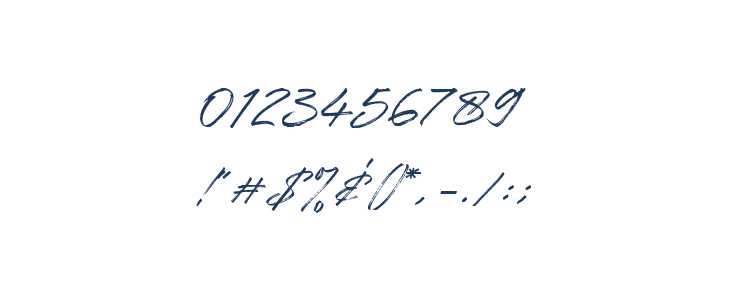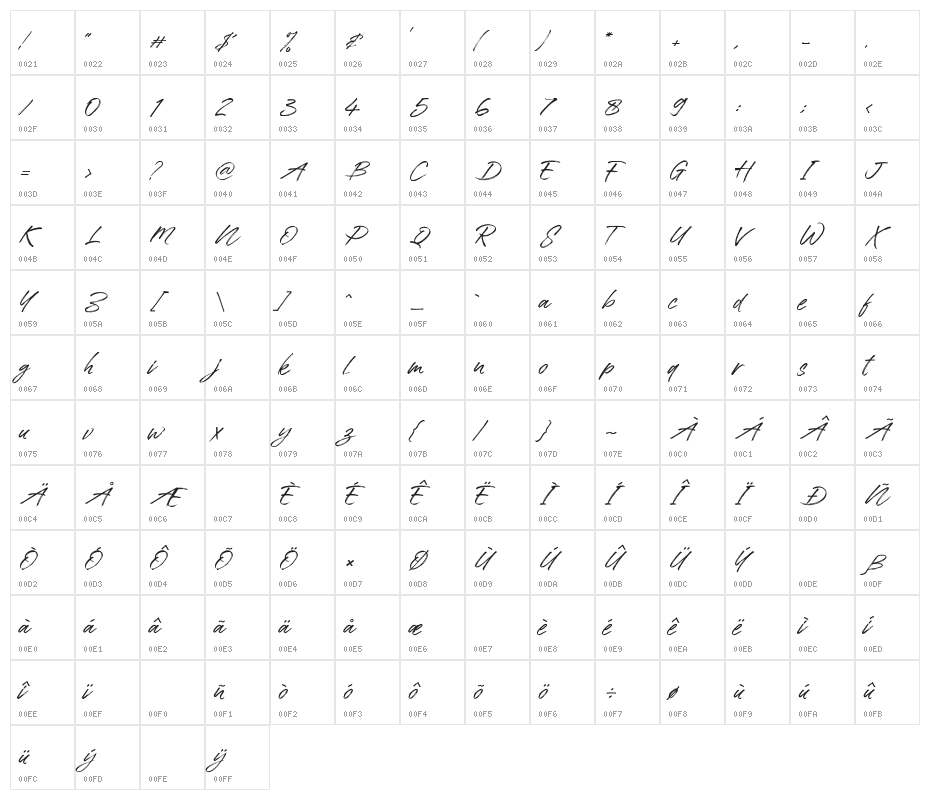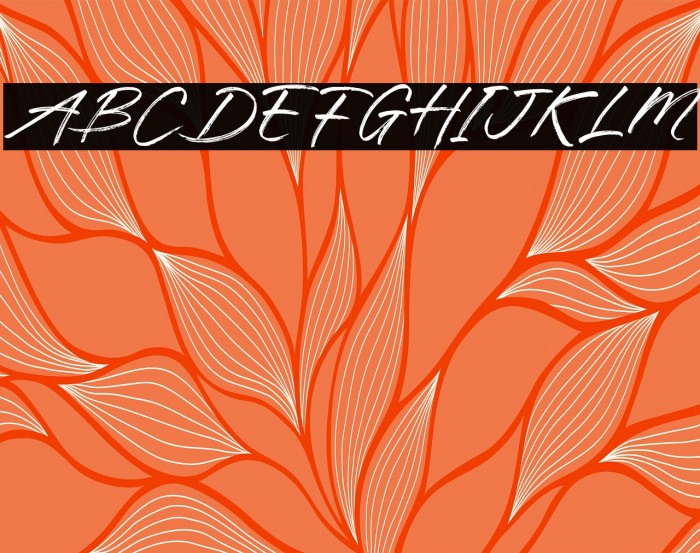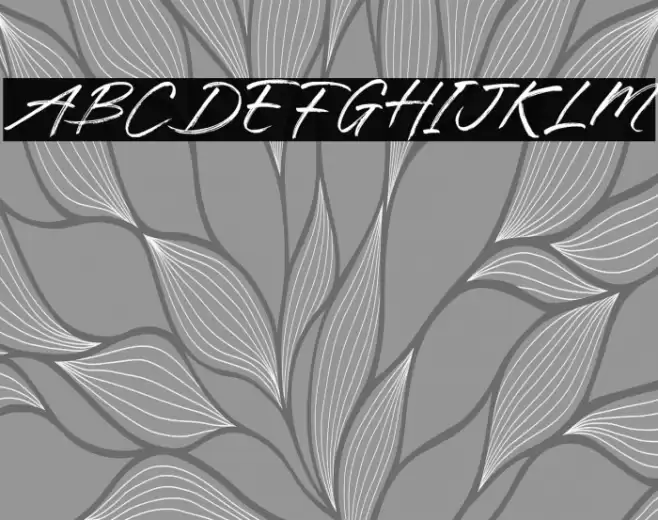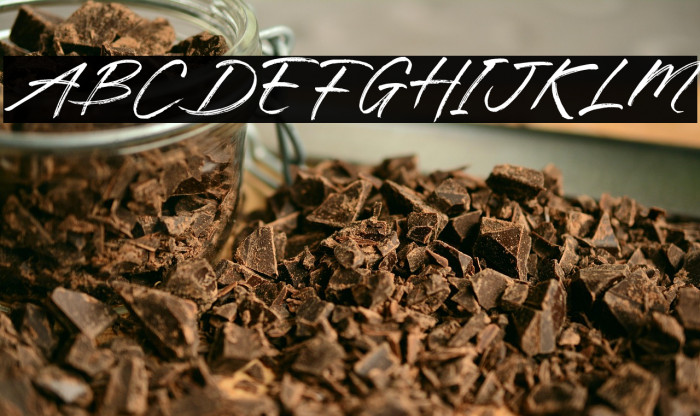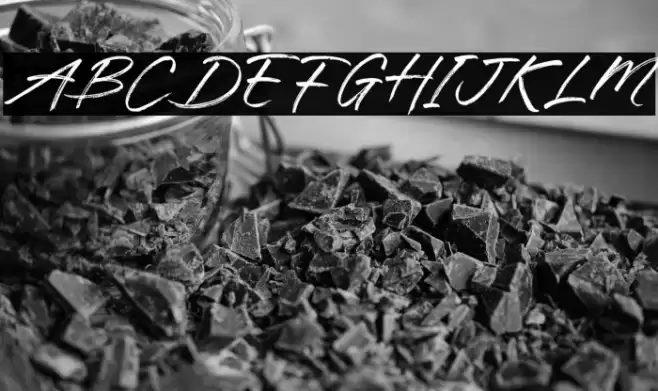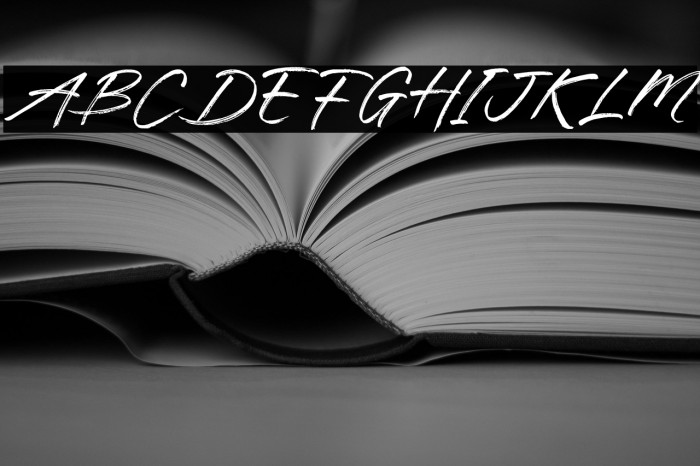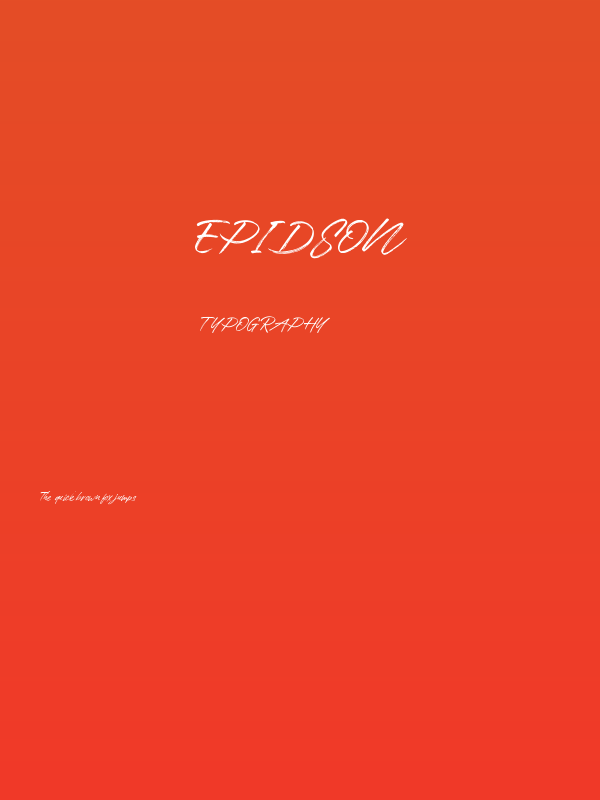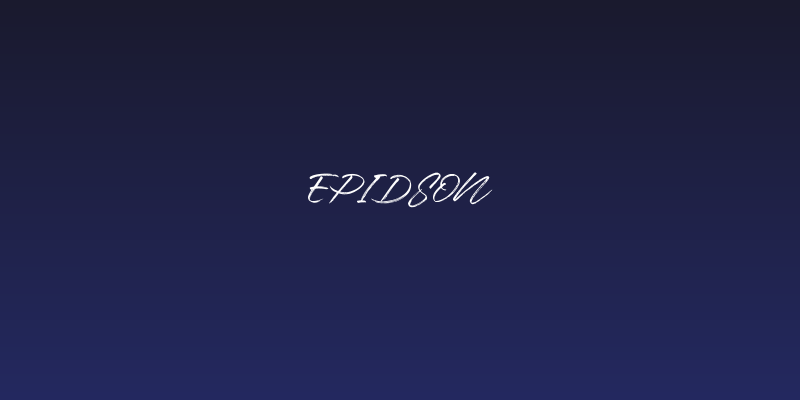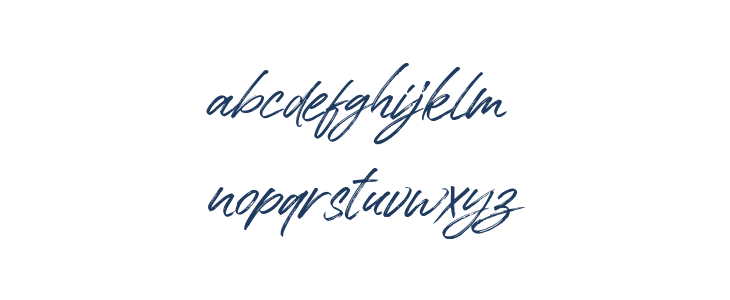
Epidson Font
Epidson Description
This font features a dynamic and energetic script style, characterized by its fluid and cursive strokes. The letters are connected, giving it a handwritten appearance that exudes elegance and sophistication. The uppercase letters are bold and slightly slanted, while the lowercase letters maintain a consistent flow with a touch of flair. The numerals and special characters are crafted with the same attention to detail, ensuring a cohesive look across all elements. This font is perfect for projects that require a personal touch, such as invitations, greeting cards, and branding materials.
| Proposed Projects | Ideal for invitations, greeting cards, branding, and personal projects. |